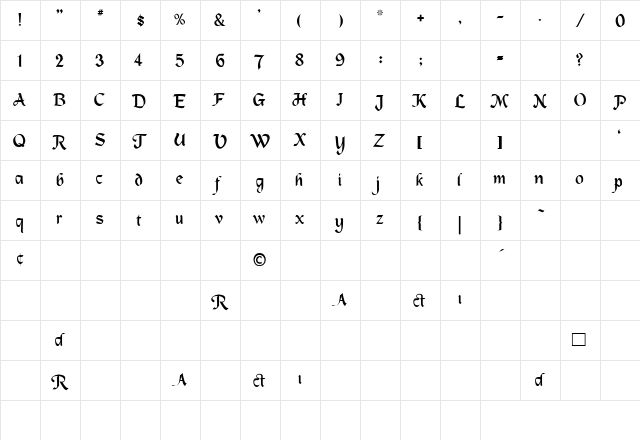
Mac Humaine Light
Design Context for Mac Humaine Typeface
Mac Humaine is a composed and adaptable typeface that performs quietly and consistently across a wide range of design contexts. Its slender proportions lend an understated elegance to any composition.